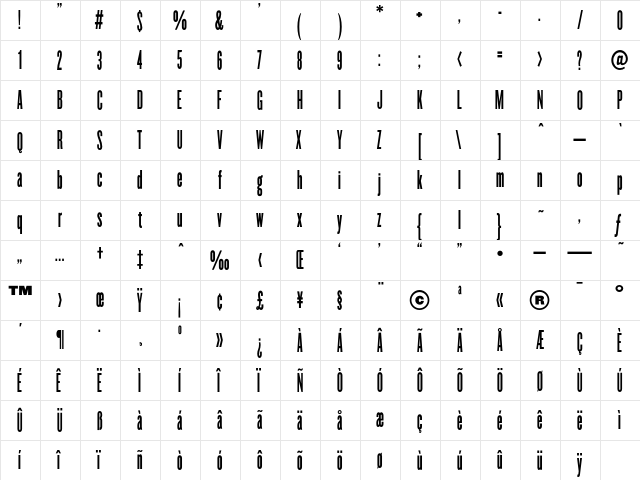
Champion HTF-Flyweight
Design Context for Champion Typeface
Champion offers clean, dependable letterforms without strong stylistic allegiance, making it a practical choice for designers who need flexibility.